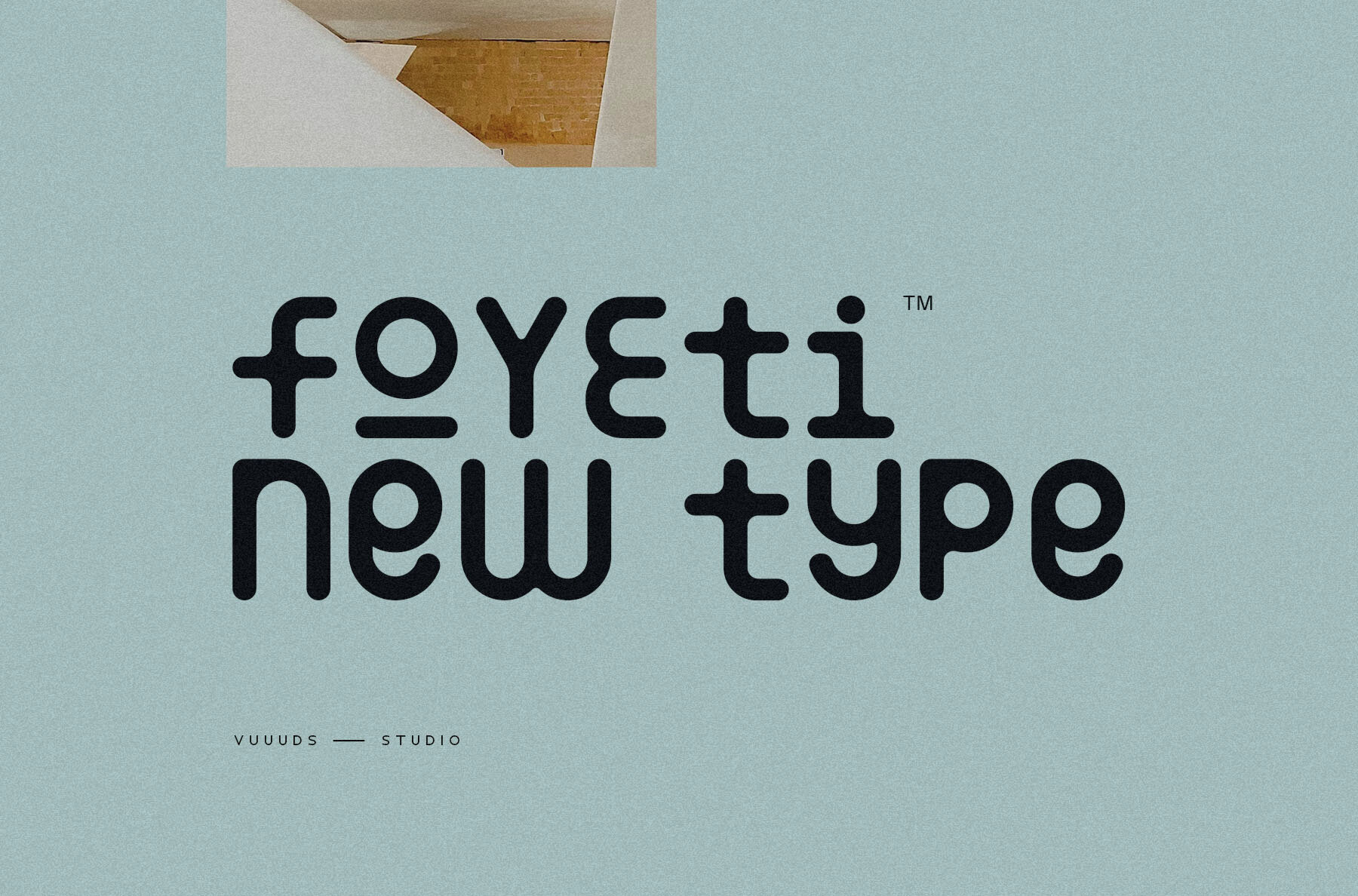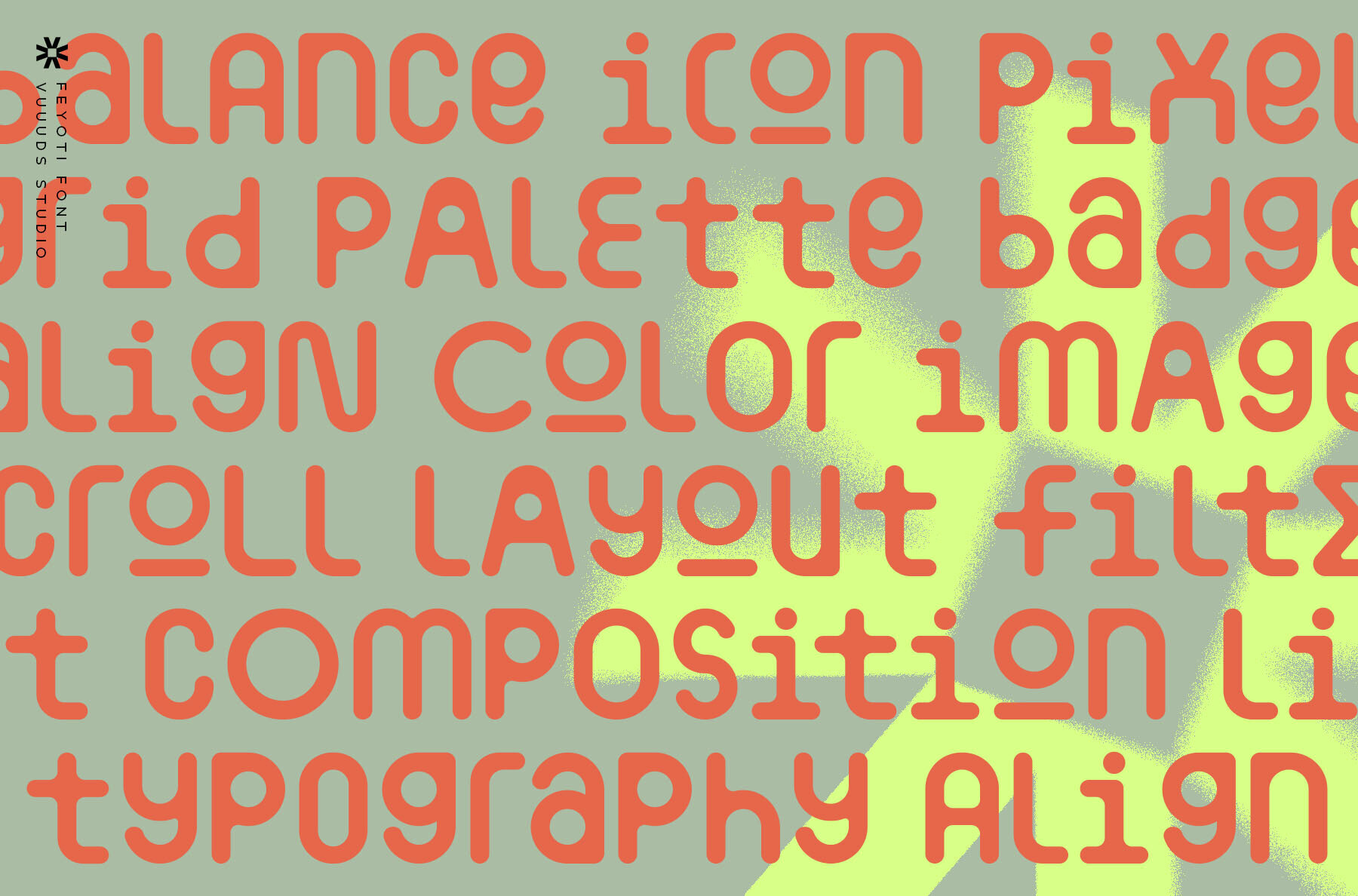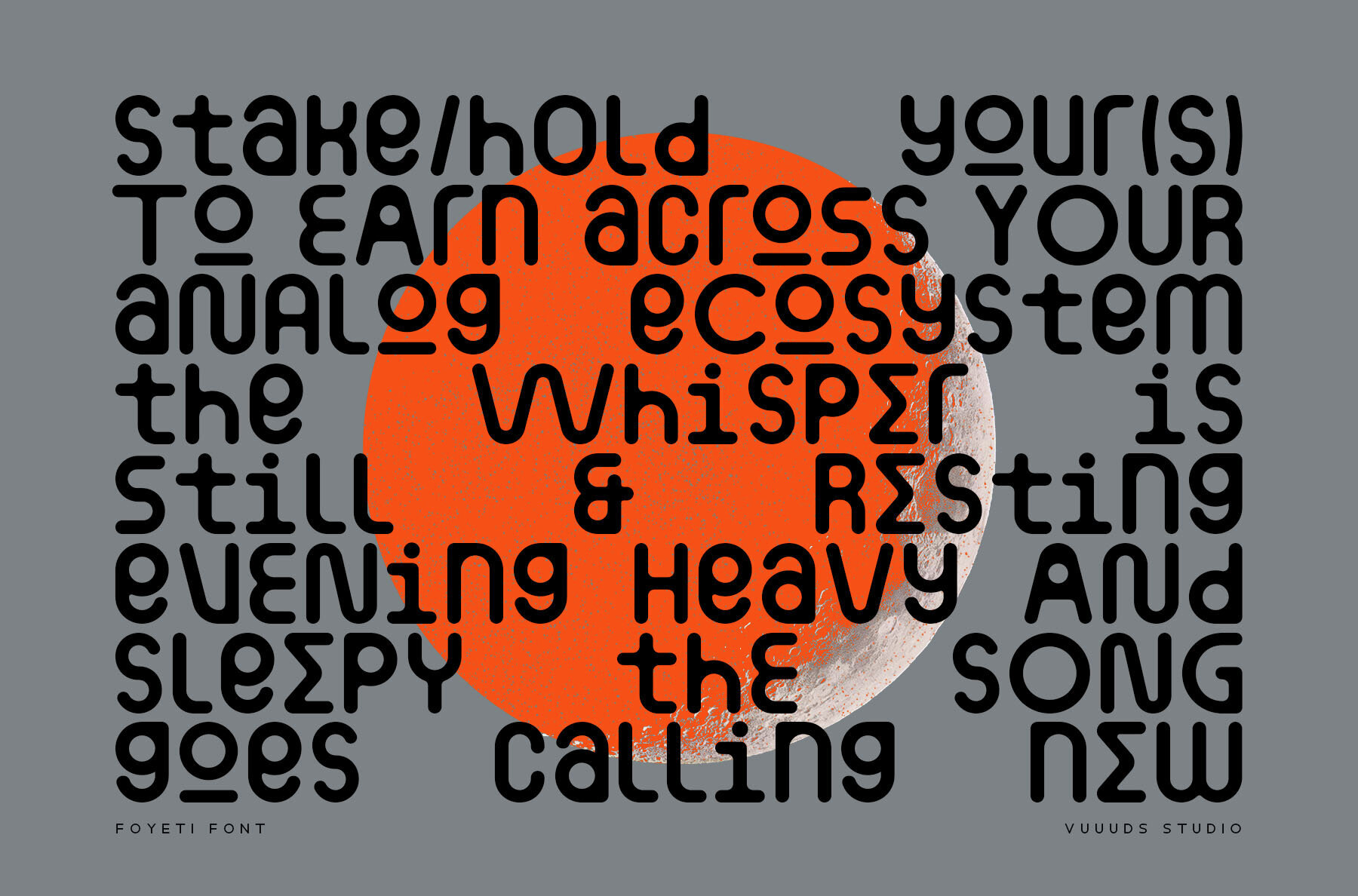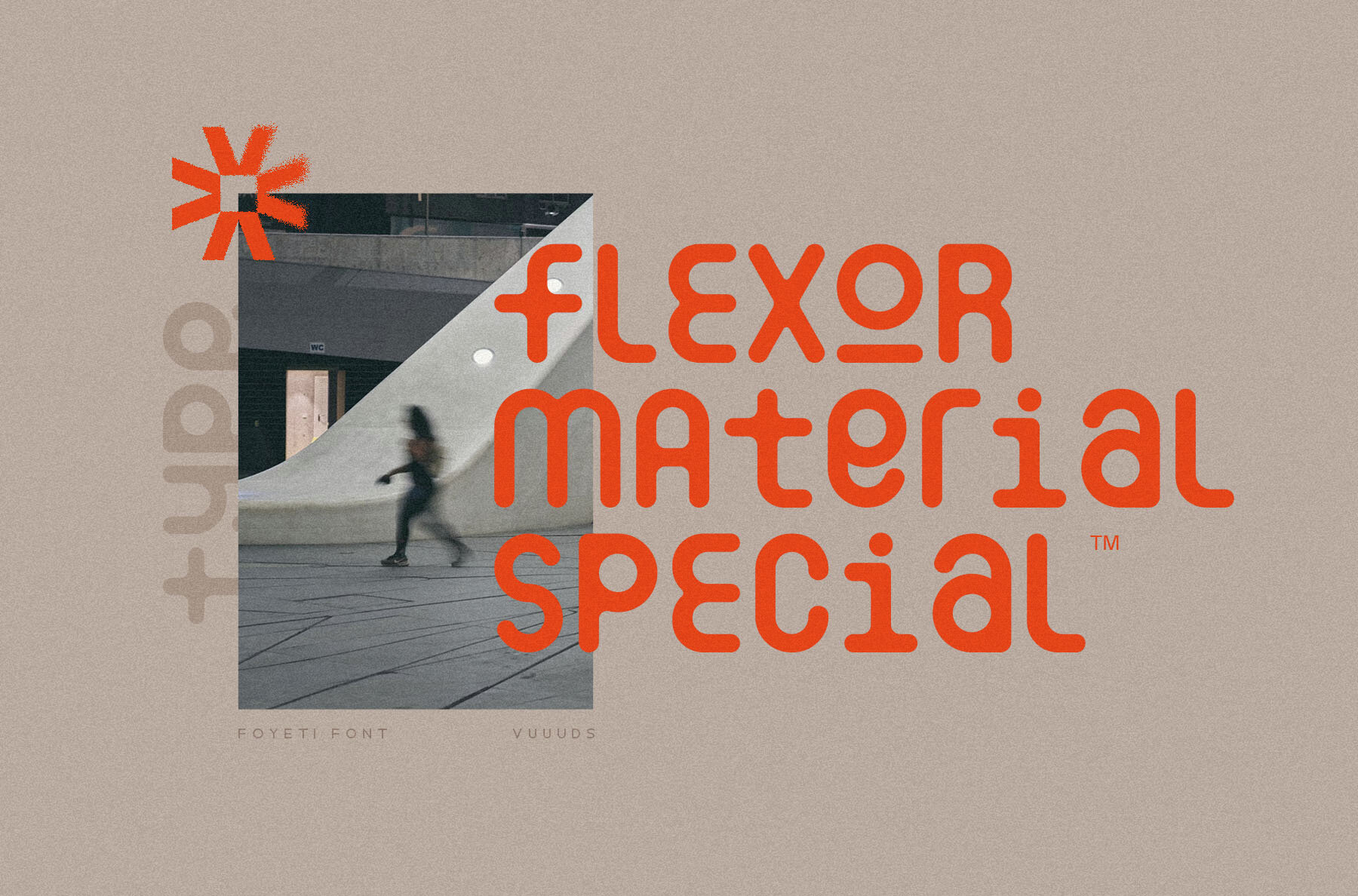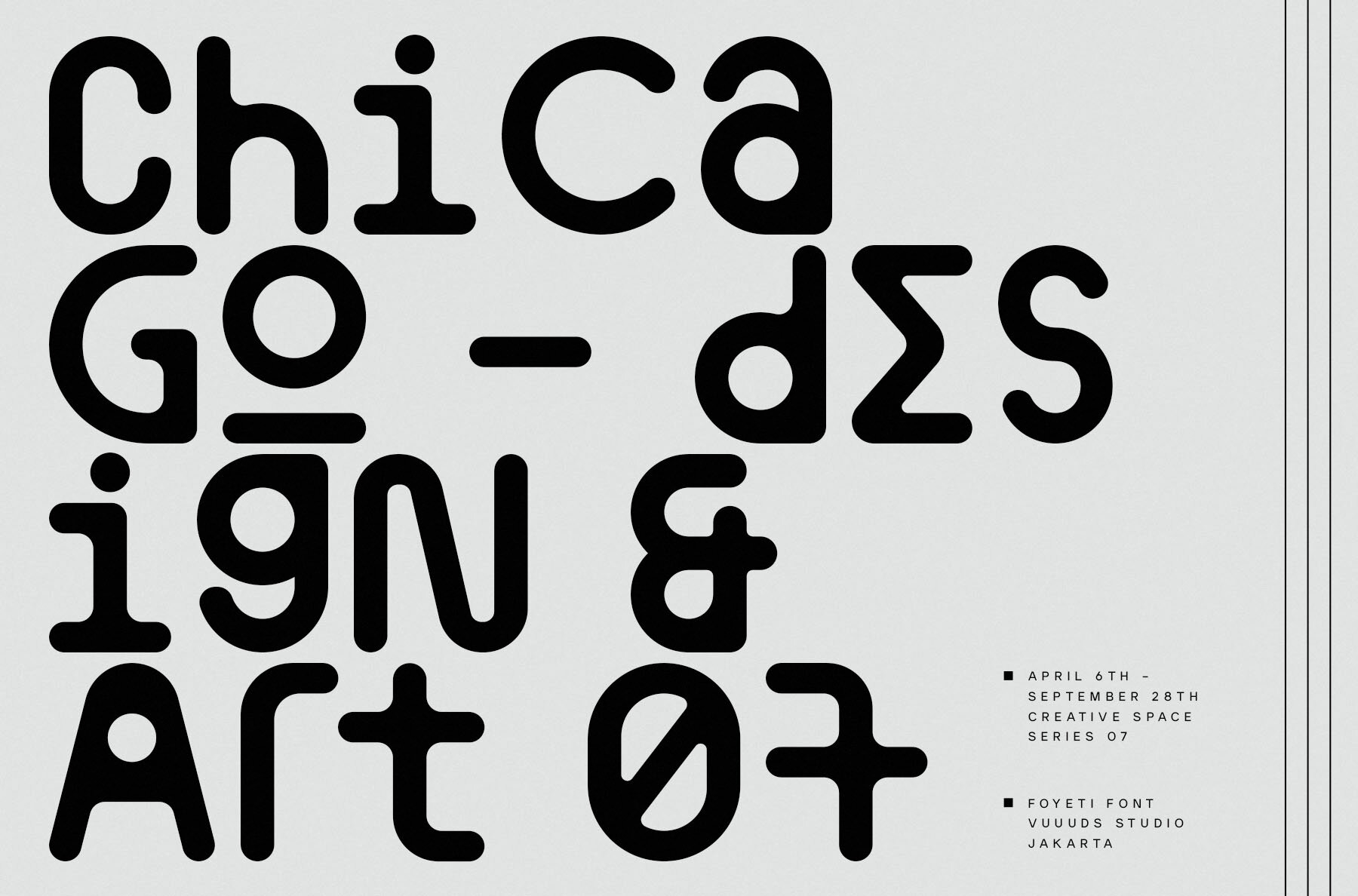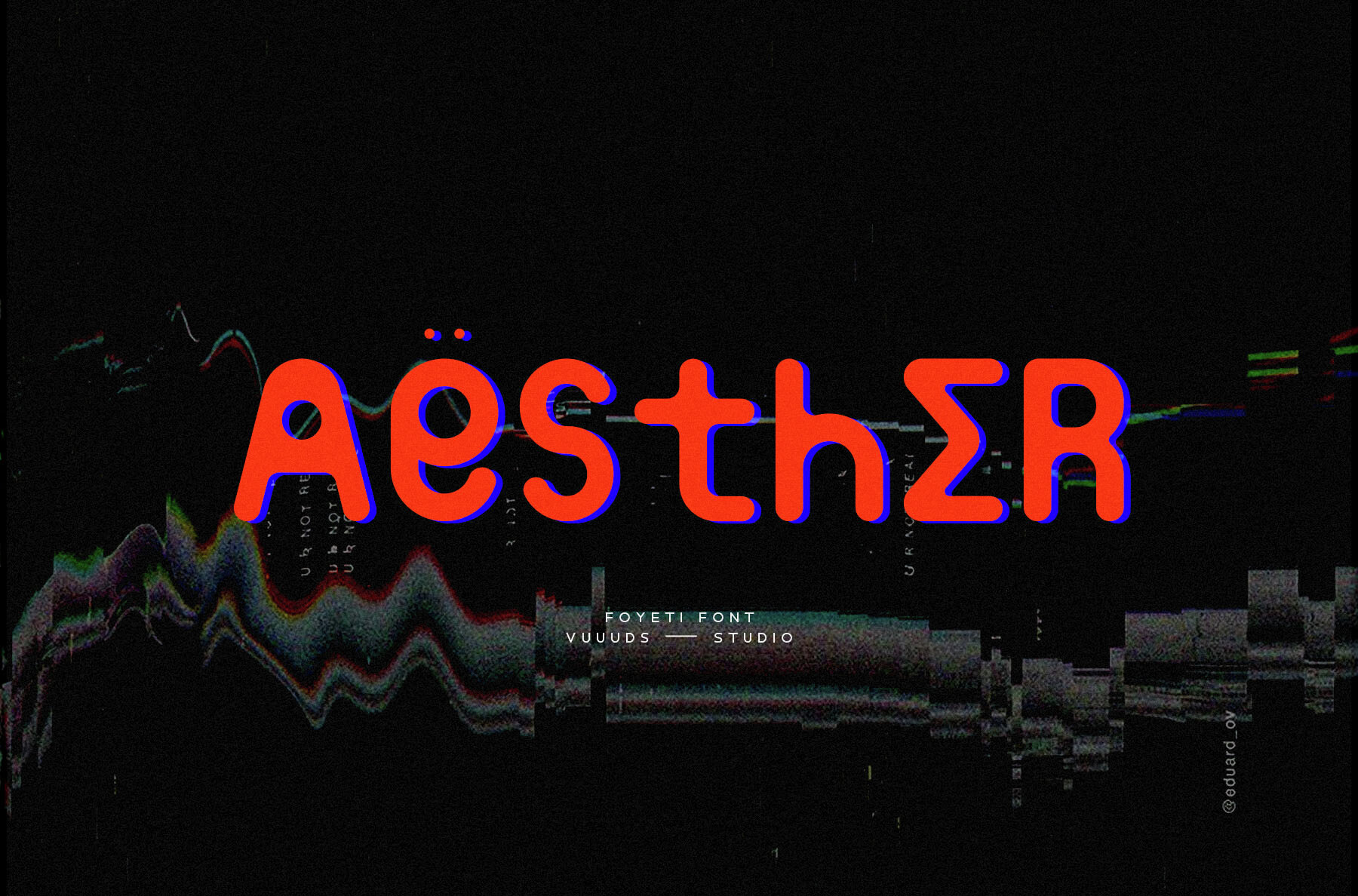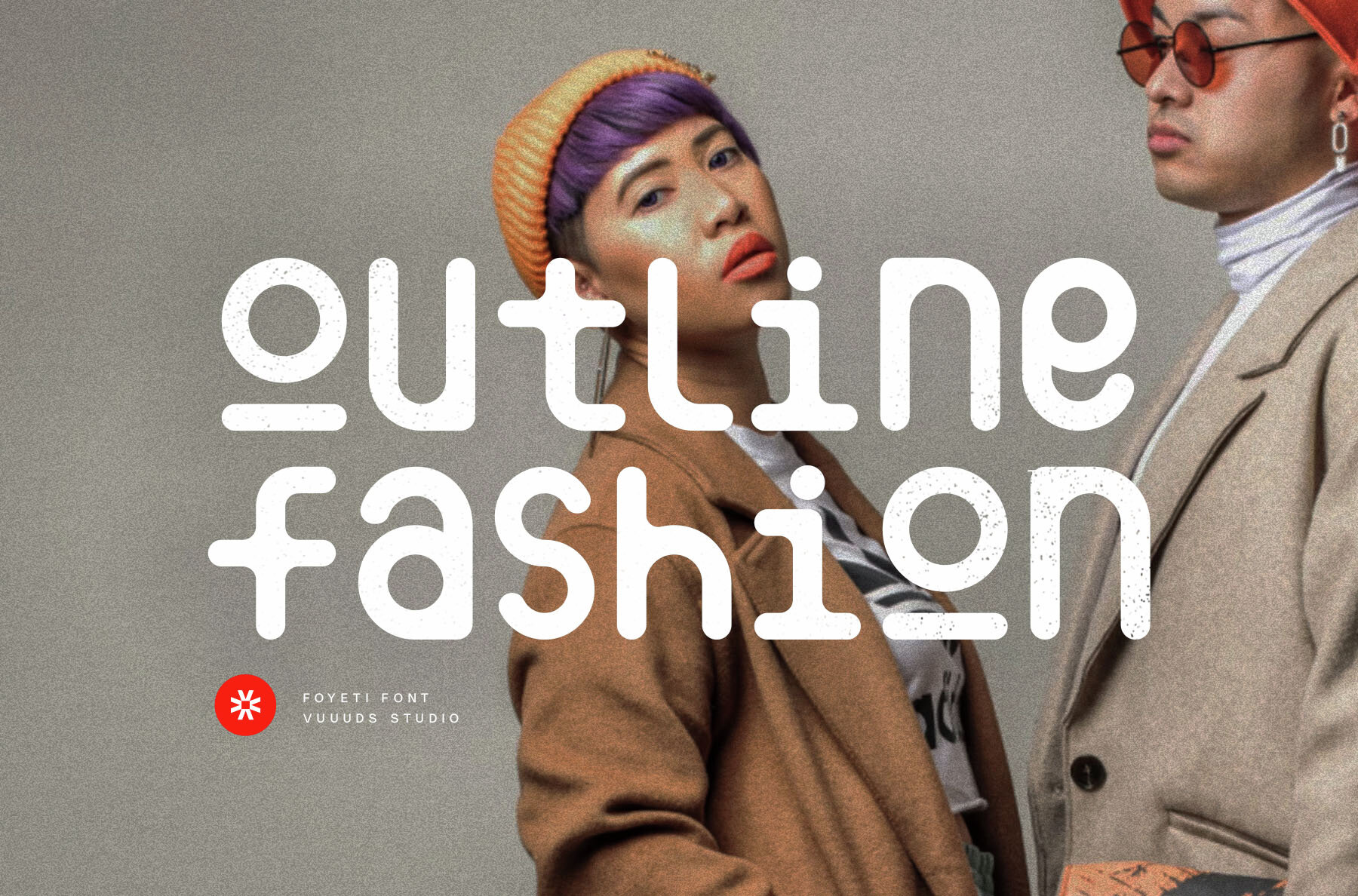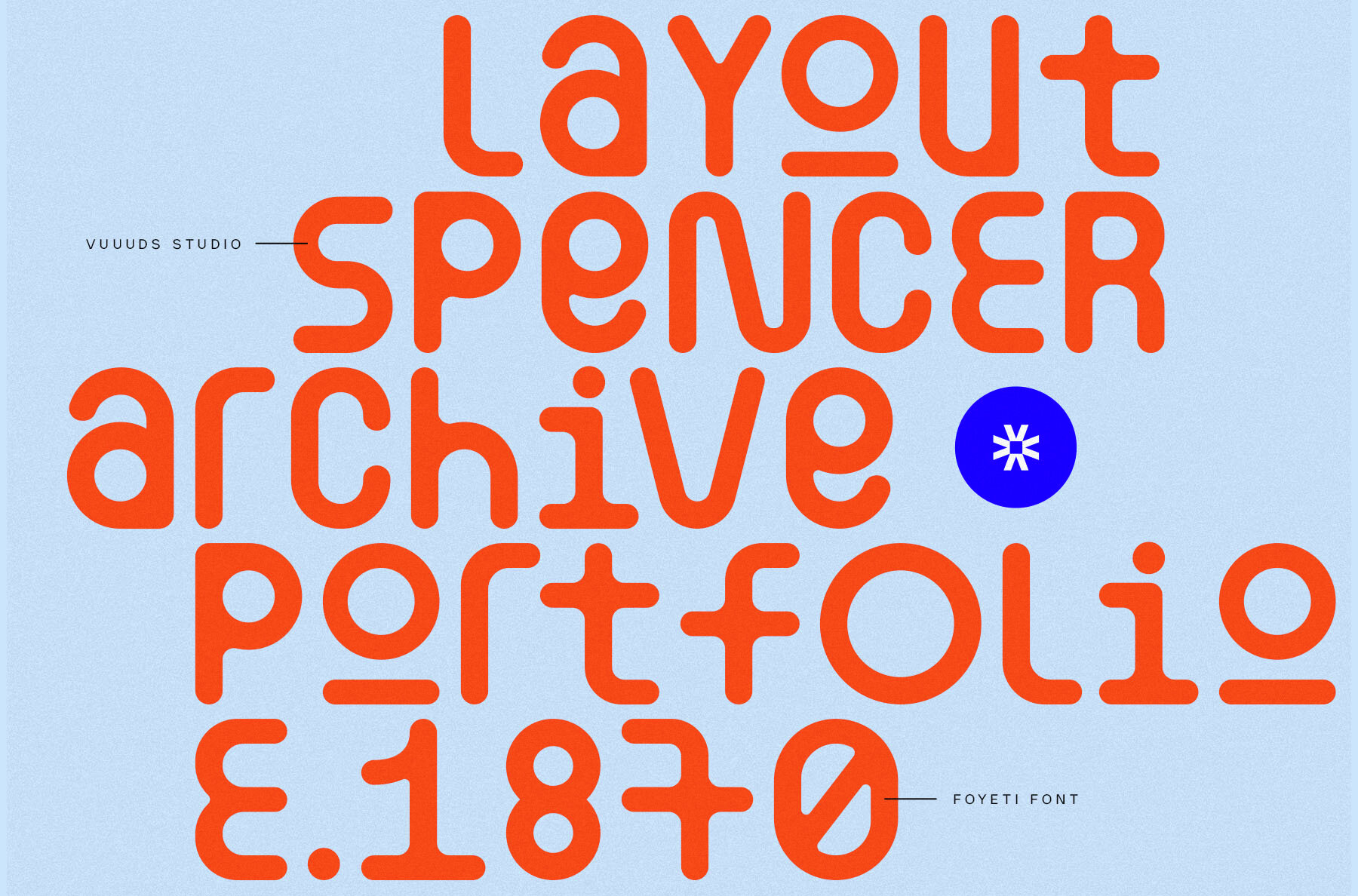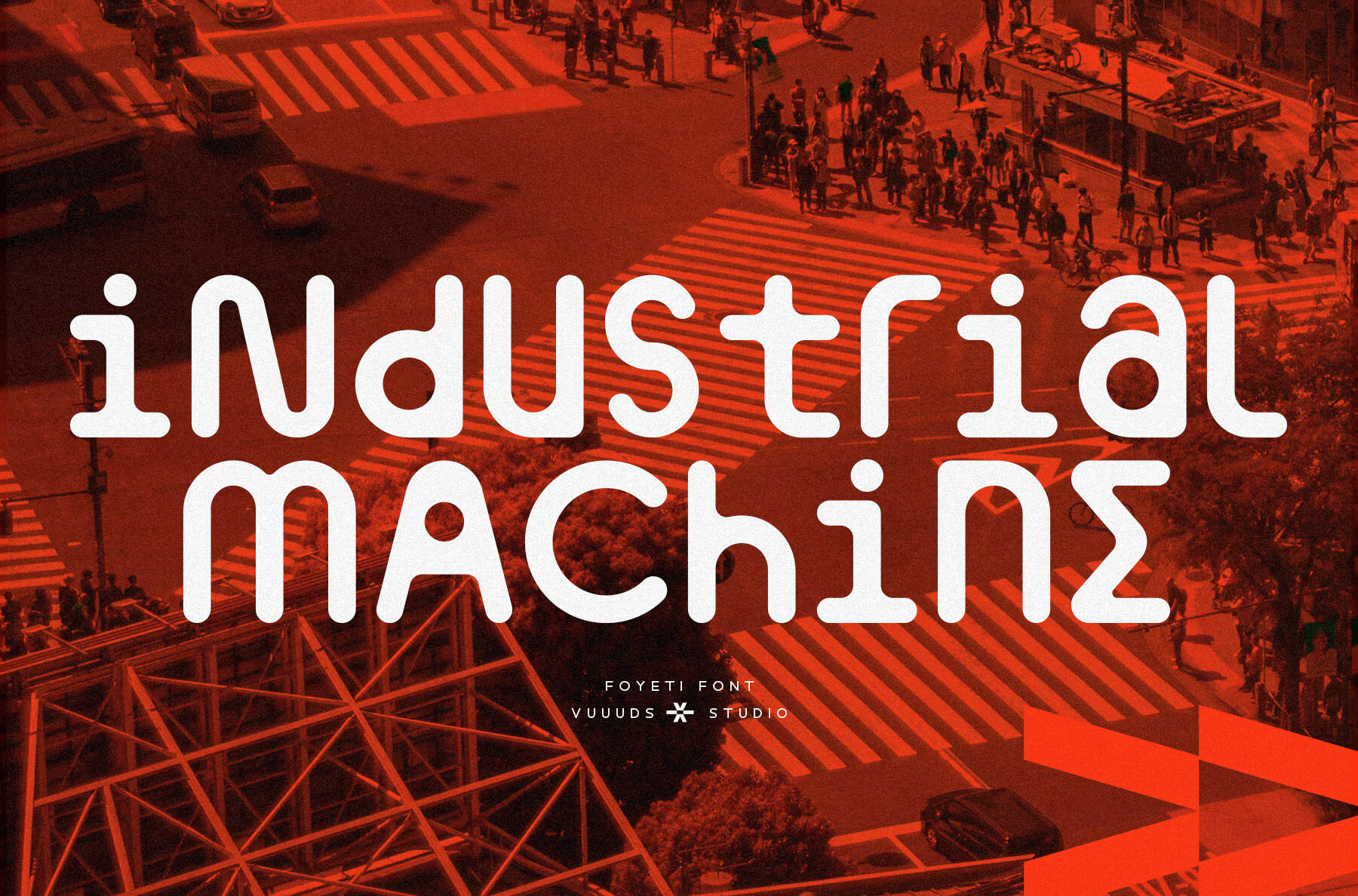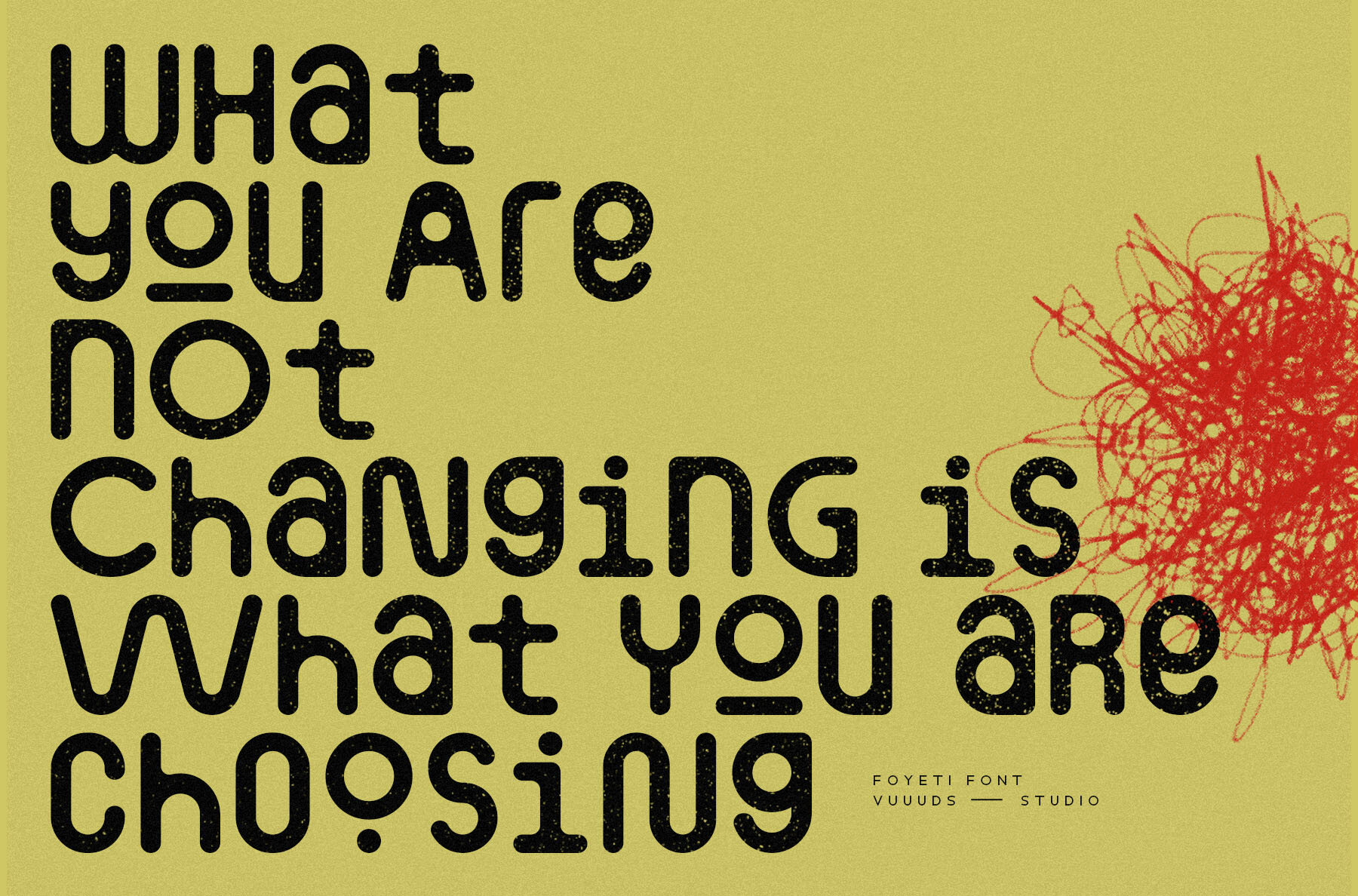
Foyeti Font
Foyeti
The Foyeti Font stands out with its modern experimental design, where each letter is a unique work of art. This font introduces an innovative approach to typography, catering to graphic designers who seek distinct and unconventional aesthetics. Among its notable attributes are the beautiful alternate glyphs, providing an added layer of customization. Users can access these glyphs through the Font Book on Mac or the Windows Character Map, ensuring flexibility in design projects. Features: Foyeti covers an extensive range of languages and symbols, including:Foyeti Font: A Modern Experimental Typeface